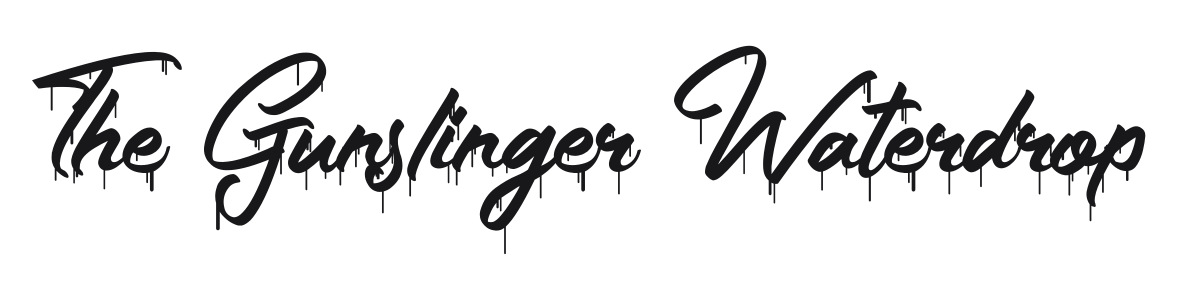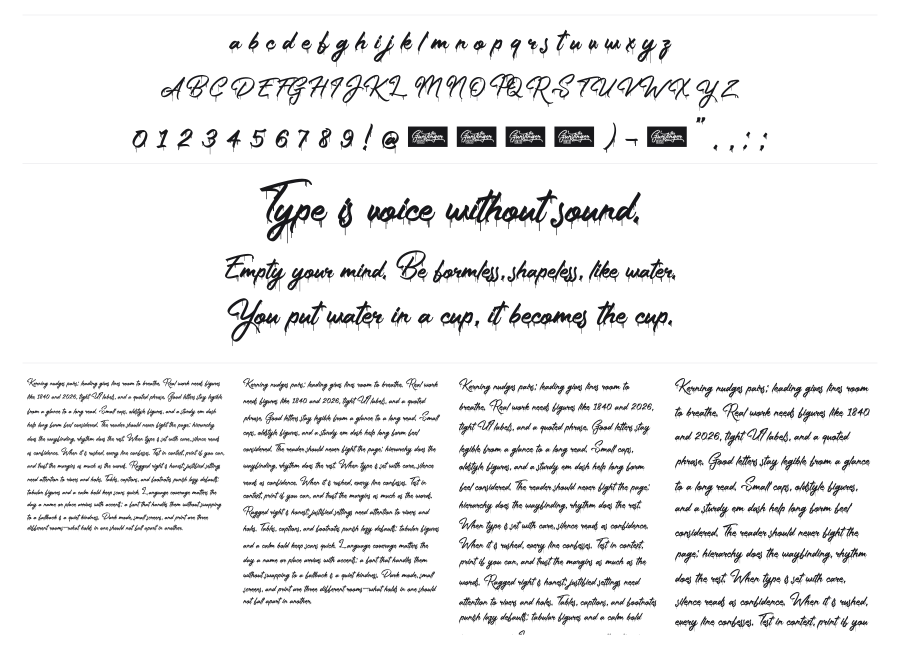
The Gunslinger Waterdrop
by Figuree Studio
The Gunslinger Waterdrop is a bold brush script defined by dramatic ink-drip details that hang from letters like paint running down a wall. The thick, sweeping strokes carry a strong street-art and graffiti energy, somewhere between hand-lettered signage and horror movie typography. It commands attention at large sizes and works well anywhere a raw, urban attitude is the point.